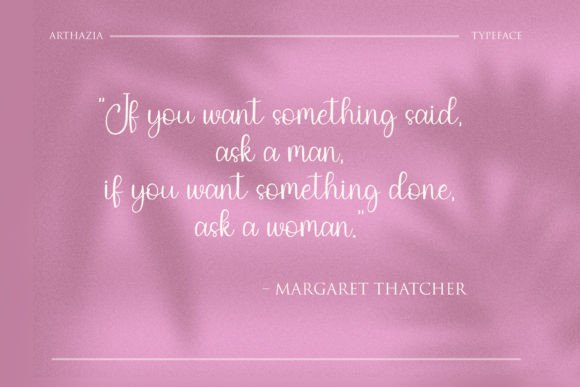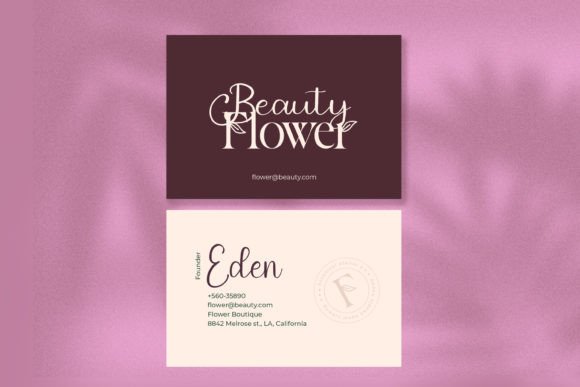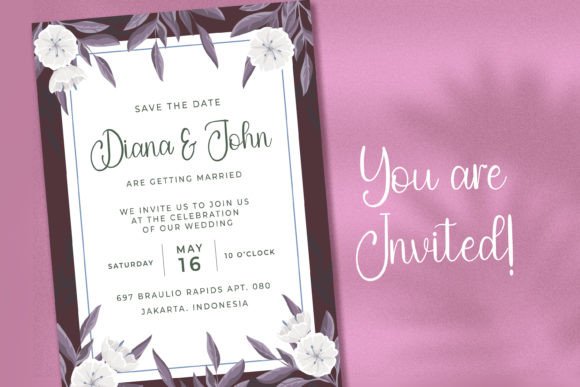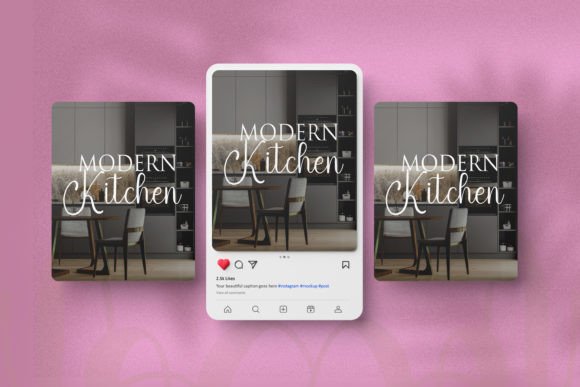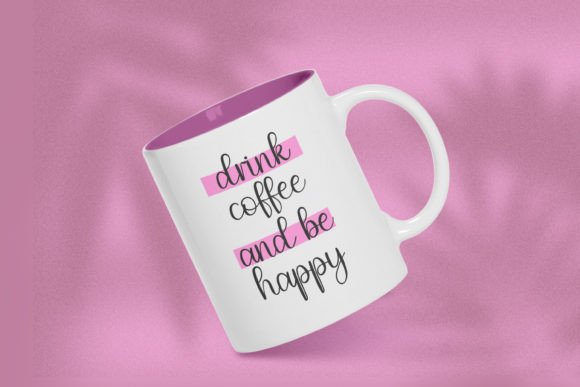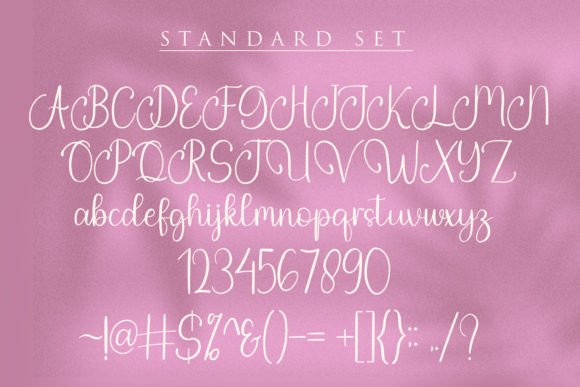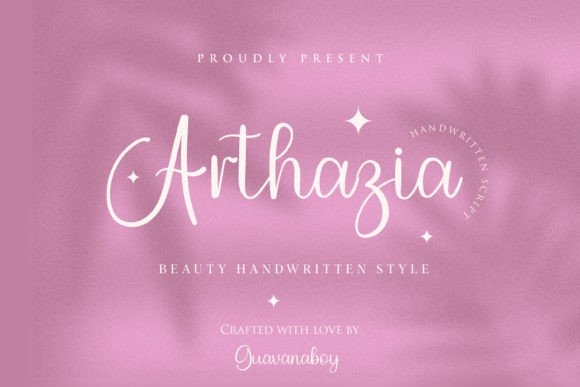
Introducing Arthazia: The Elegant and Versatile Font by Guavanaboy
Are you tired of using the same old fonts for your designs? Look no further! Arthazia, a stunning creation by Guavanaboy, is here to revolutionize the way you approach typography. This beautiful font seamlessly blends elegance and aesthetic versatility, making it perfect for a wide range of applications.
A Signature Handwriting Style
Arthazia boasts a unique signature handwriting style that exudes sophistication and charm. Its flowing lines and delicate curves make it an ideal choice for social media posts, logos, and wedding invitations. Whether you’re looking to add a touch of warmth to your special day or create a lasting impression on your audience, Arthazia is the perfect font for the job.
Endless Possibilities
One of the standout features of Arthazia is its incredible versatility. This font can be used in a multitude of creative projects, including:
- Crafting: Add a personal touch to your handmade crafts, such as journals, cards, and gift tags.
- Clothing designs: Create stunning shirts, hoodies, and other apparel with Arthazia’s elegant lettering.
- Labels and stickers: Make your products stand out with unique and eye-catching labels and stickers.
- Business cards: Elevate your professional image with Arthazia’s sophisticated and stylish font.
- Greeting cards: Spread joy and warmth with Arthazia’s effortless charm.
- Posters: Create striking posters that grab attention and leave a lasting impression.
- Planner prints: Add a touch of elegance to your planners and journals.
- Websites: Enhance your online presence with Arthazia’s beautiful typography.
User-Friendly and Accessible
Why Choose Arthazia?
So, why should you choose Arthazia for your design needs? Here are just a few compelling reasons:
- Unique and elegant design.
- Incredible versatility.
- User-friendly and accessible.
- PUA encoded for added flexibility.
- Perfect for a wide range of applications.
In conclusion, Arthazia is a game-changing font that offers a perfect blend of elegance and versatility. Whether you’re a designer, crafter, or business owner, this font is sure to become a staple in your creative toolkit. With its signature handwriting style, endless possibilities, and user-friendly design, Arthazia is the perfect choice for anyone looking to elevate their typography and create stunning designs.